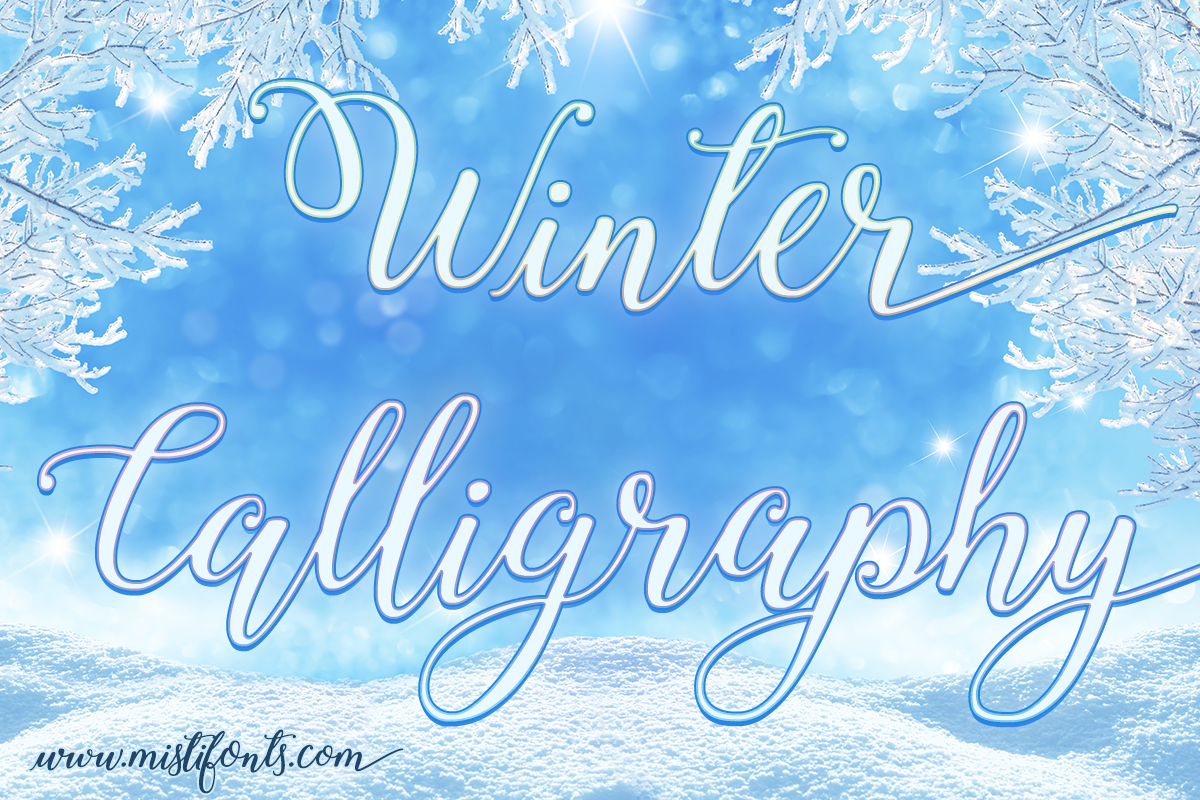
Winter Calligraphy is a bouncy, calligraphy font that is perfect for your design and craft projects, including greeting cards, product labels, invitations, logos, and so much more!
- 968 glyphs (including uppercase, lowercase, numbers, and punctuation)
- 743 extra glyphs (alternates, swashes, ligatures, contextual alts, and catch words) - I can add more at request!
- Lots of language support (covers most European languages) and I can add more language support at request!